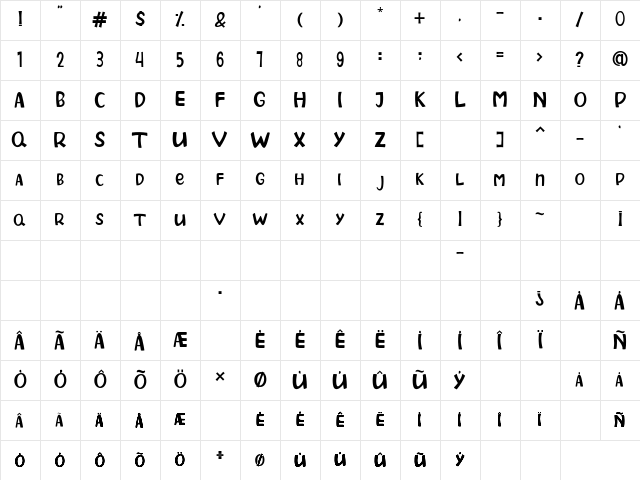
PRINCESS UNICORN Regular
| Foundry | Alfinart |
| Designer | Alfin Ridhowi |
Design Context for PRINCESS UNICORN Typeface
PRINCESS UNICORN is a composed and adaptable typeface that performs quietly and consistently across a wide range of design contexts.